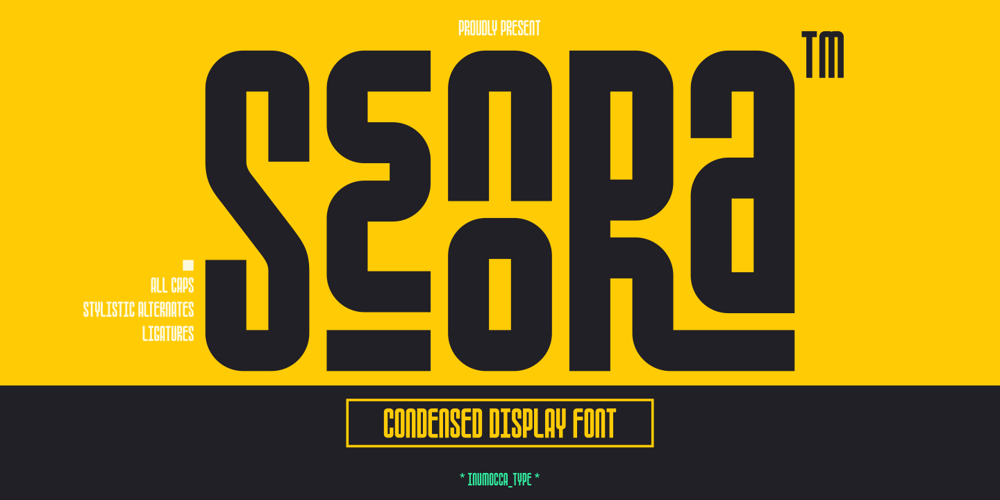
Senora Condensed Font Family was designed by Inu Mocca and published by Inumocca. Senora Condensed contains 1 styles and family package options. Senora is a Condensed Display font, simpel and powerful fontAwesome More Beautiful 118 Ligature Features and 90 Stylistic Alternates. Really playful typeface to covering your Project, like Lettering, Website Interface, Magazine, Branding, Poster, wedding invitations, Quotes Lettering, Logos, and more your project design.- Unique glyphs- Multilingual Characters- UPPERCASE- Lowercase- Numeric- Symbol- Punctuation Character- PUA encoded- Ligature Features – Stylistic Alternates – All Capsinumoccatype